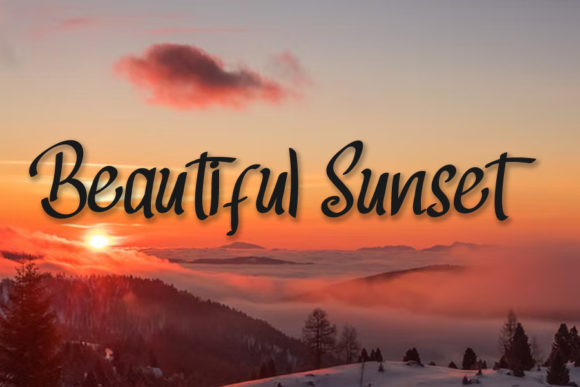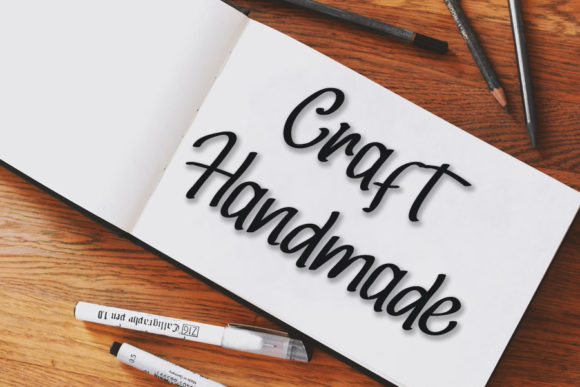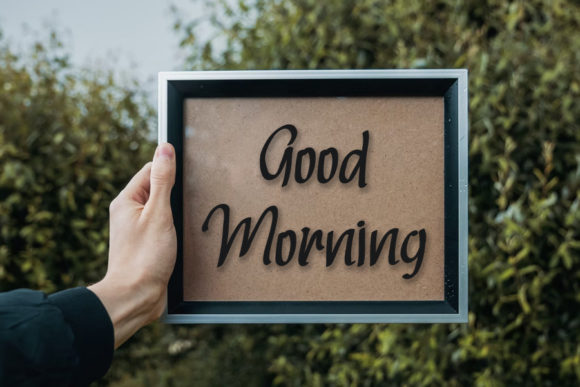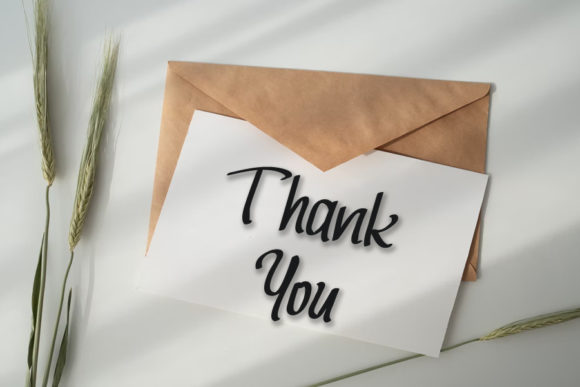
About Winterland Font
Winterland is a casual and adaptable handwritten font. Whatever the topic, this font will be a wonderful asset to your font library, as it has the potential to enhance any creation.